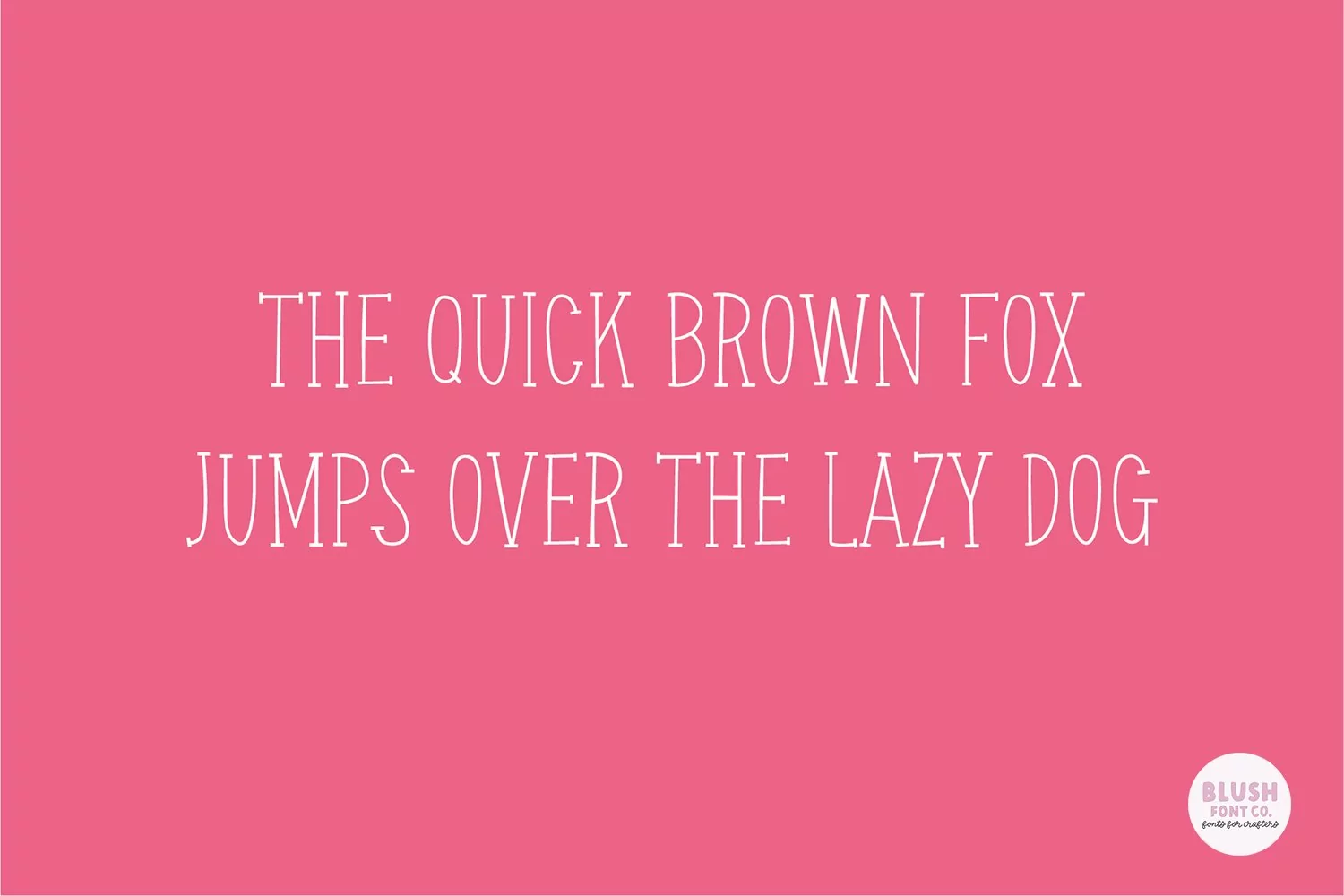
"GARDEN TOMATO" serif farmhouse font. Perfect for signs! This is an all-caps font.
Garden Tomato is a simple serif font that will compliment any script font. It was made with rustic farmhouse signs and the cottagecore aesthetic in mind. Check out our other farmhouse style fonts that pair perfectly with this one!